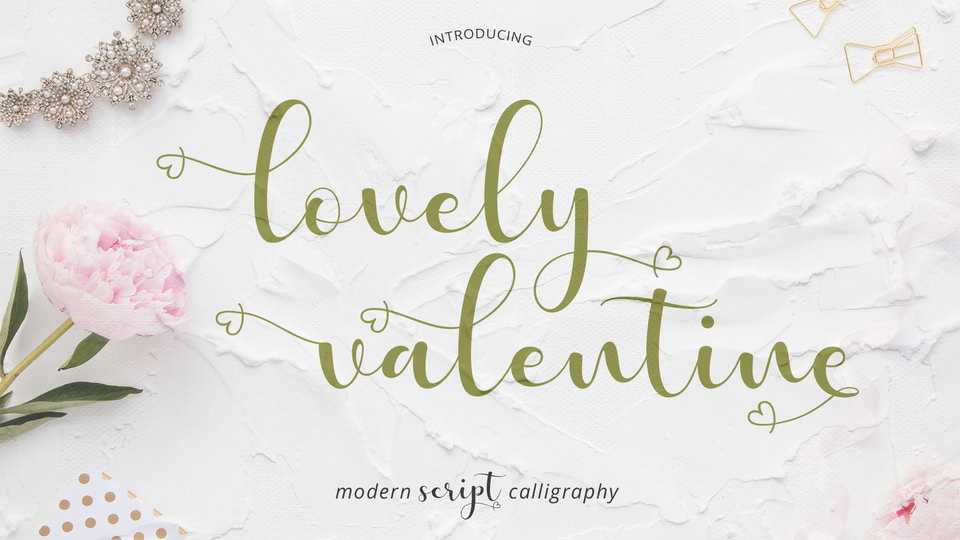
Download Lovely Valentine font, a unique blend of classic and modern font with imperfect style flowing ups and downs, like a dance letters, smooth, clean and simple. It includes alternate glyphs, ligatures and beautiful swirls.